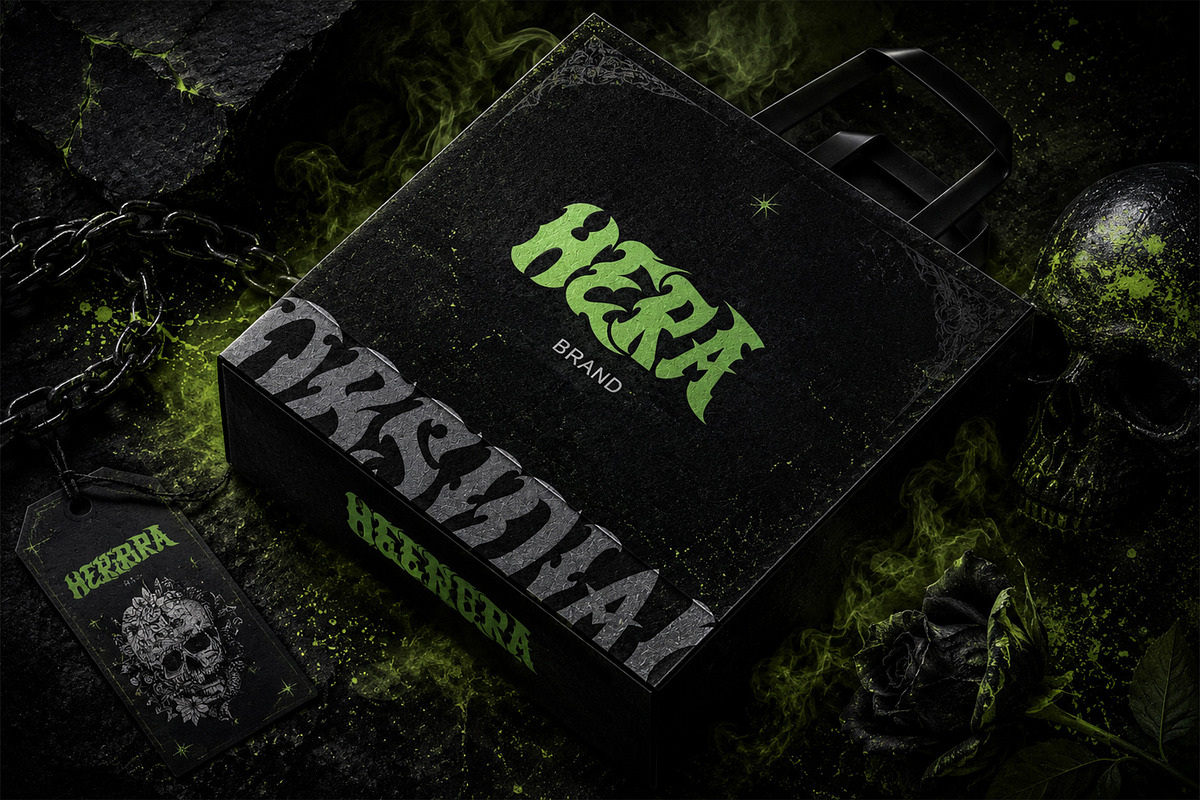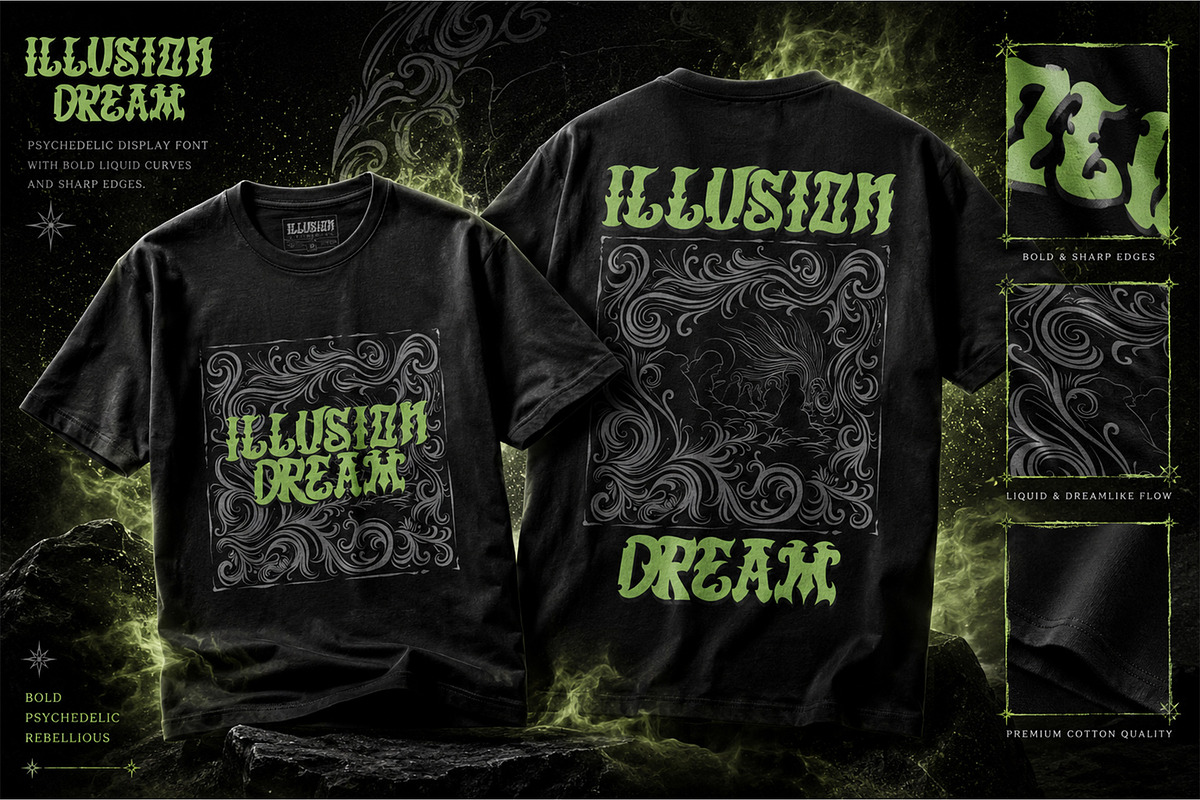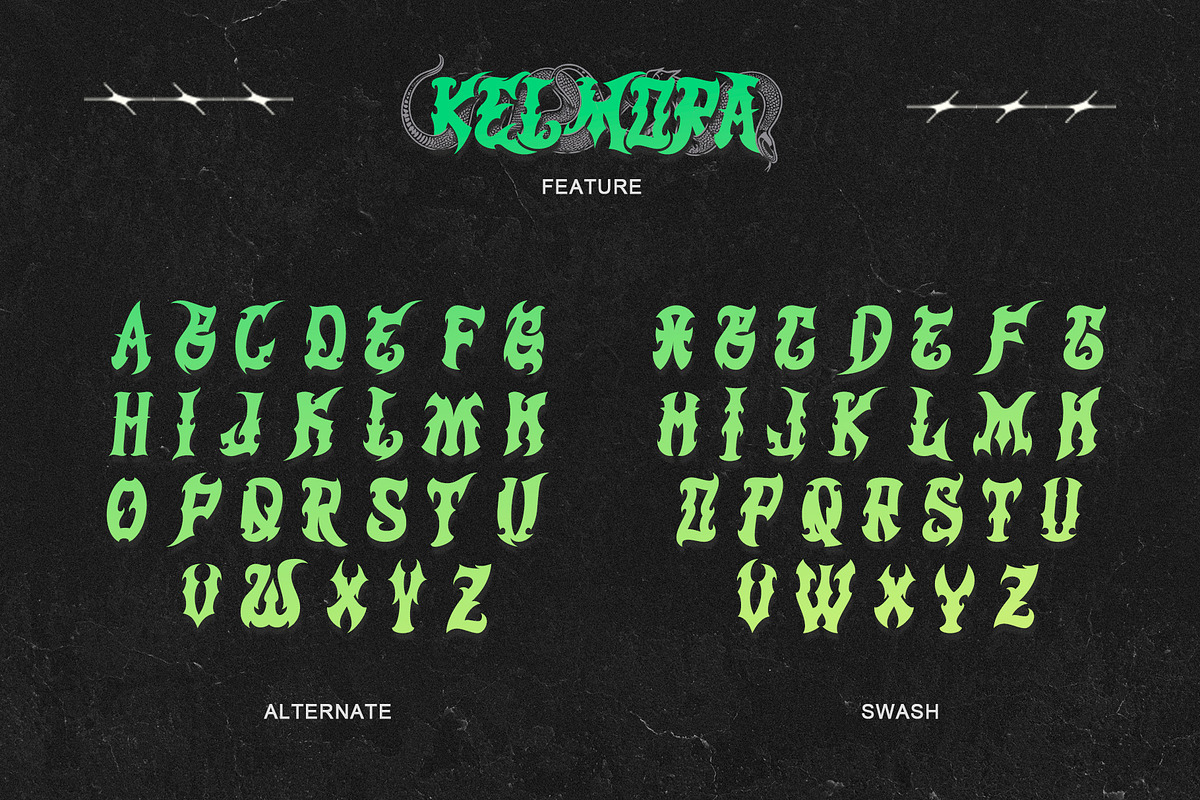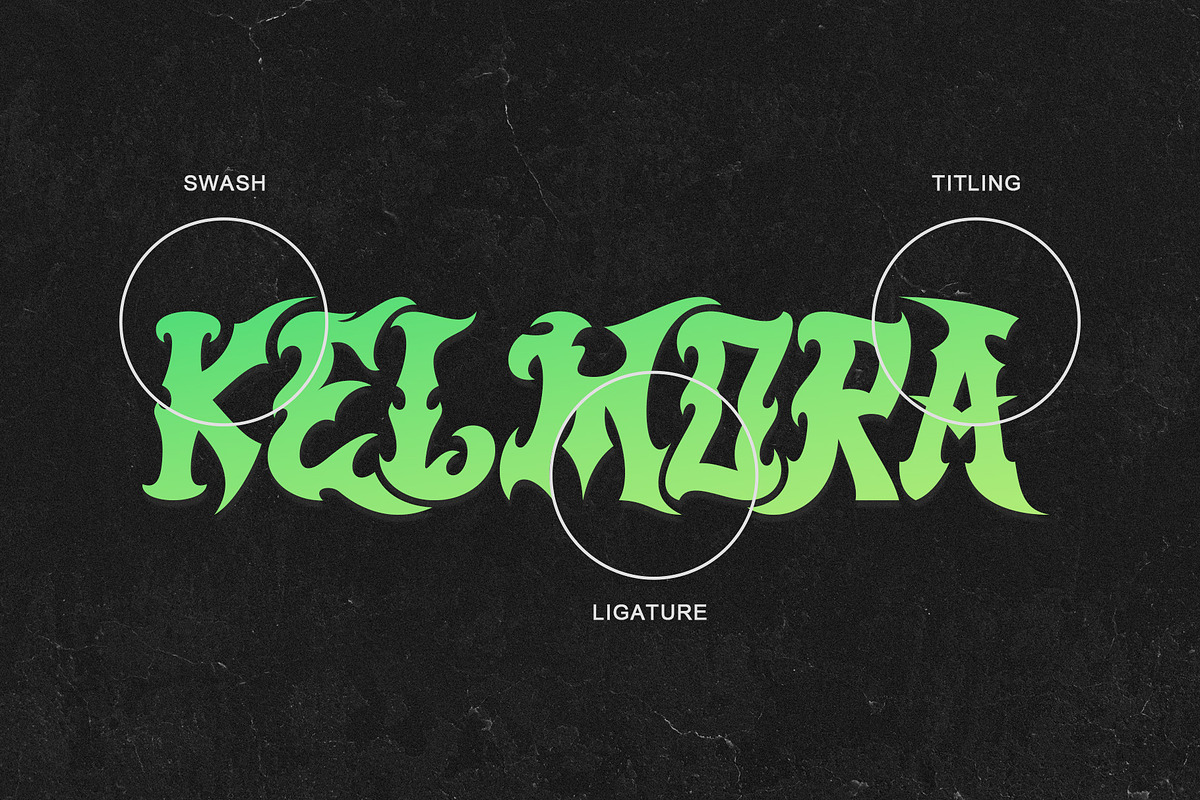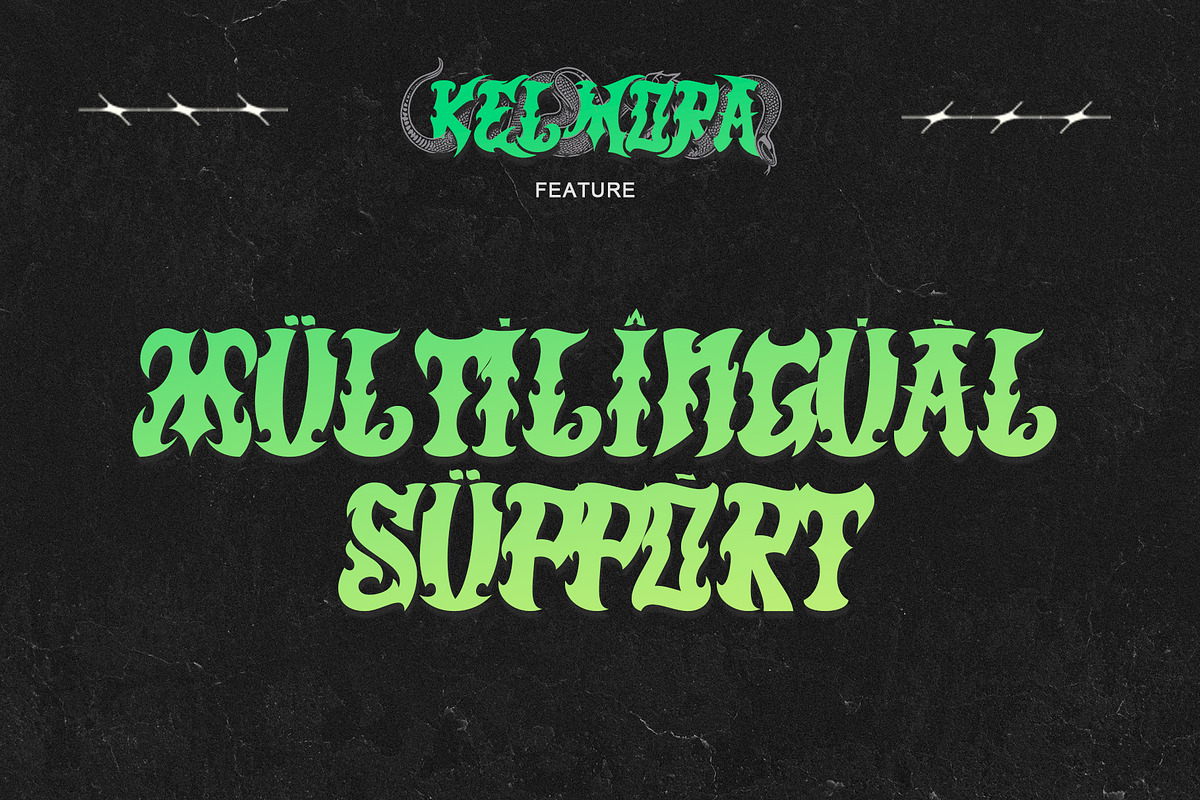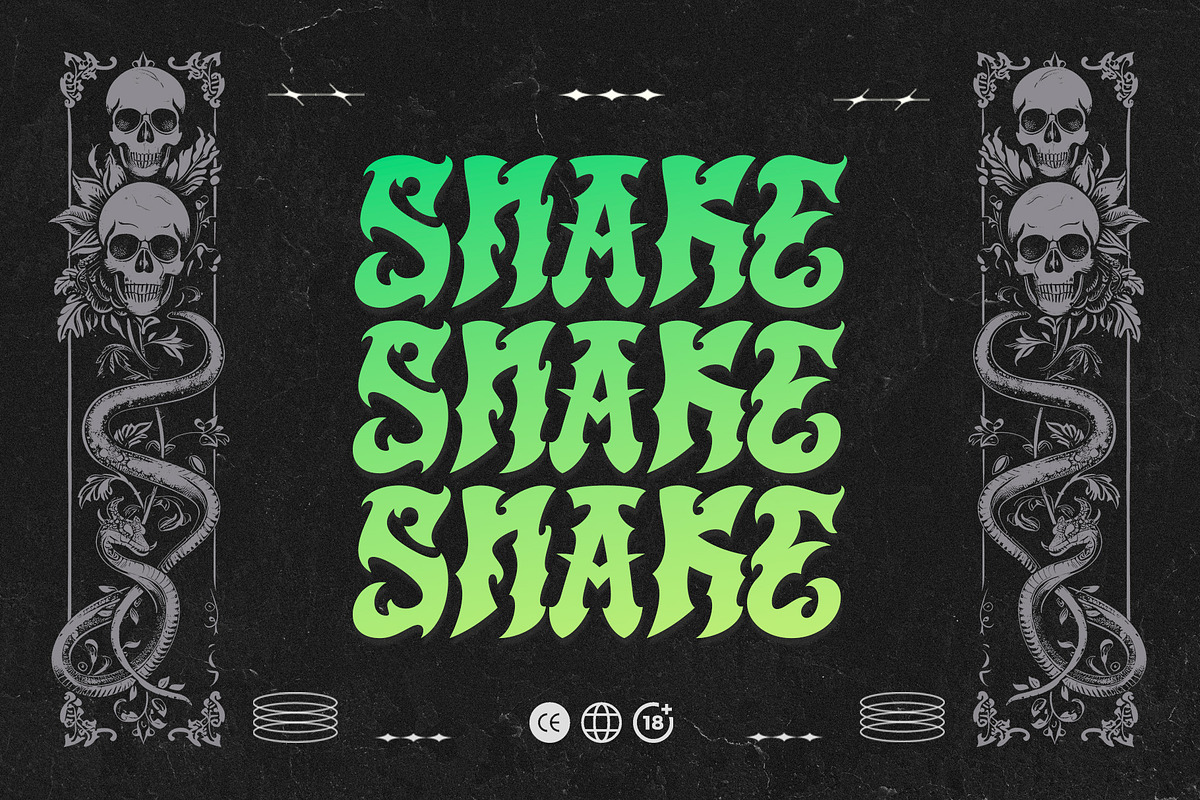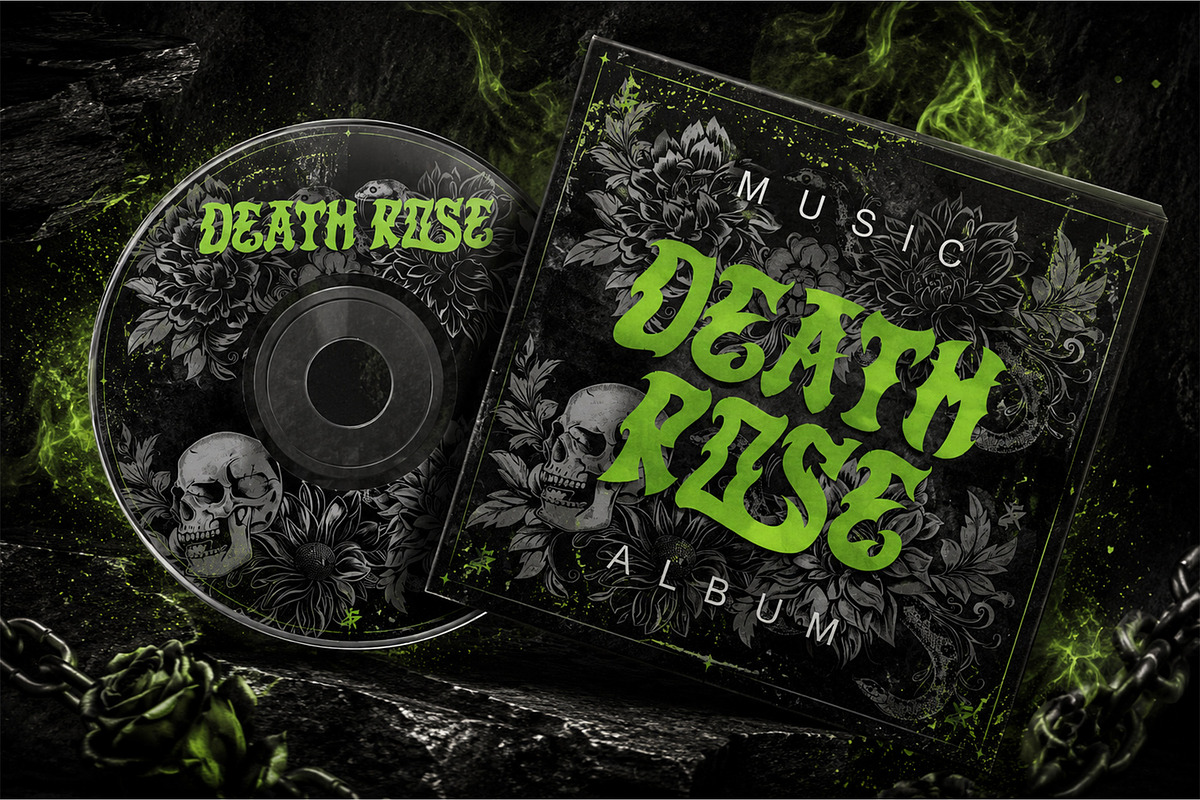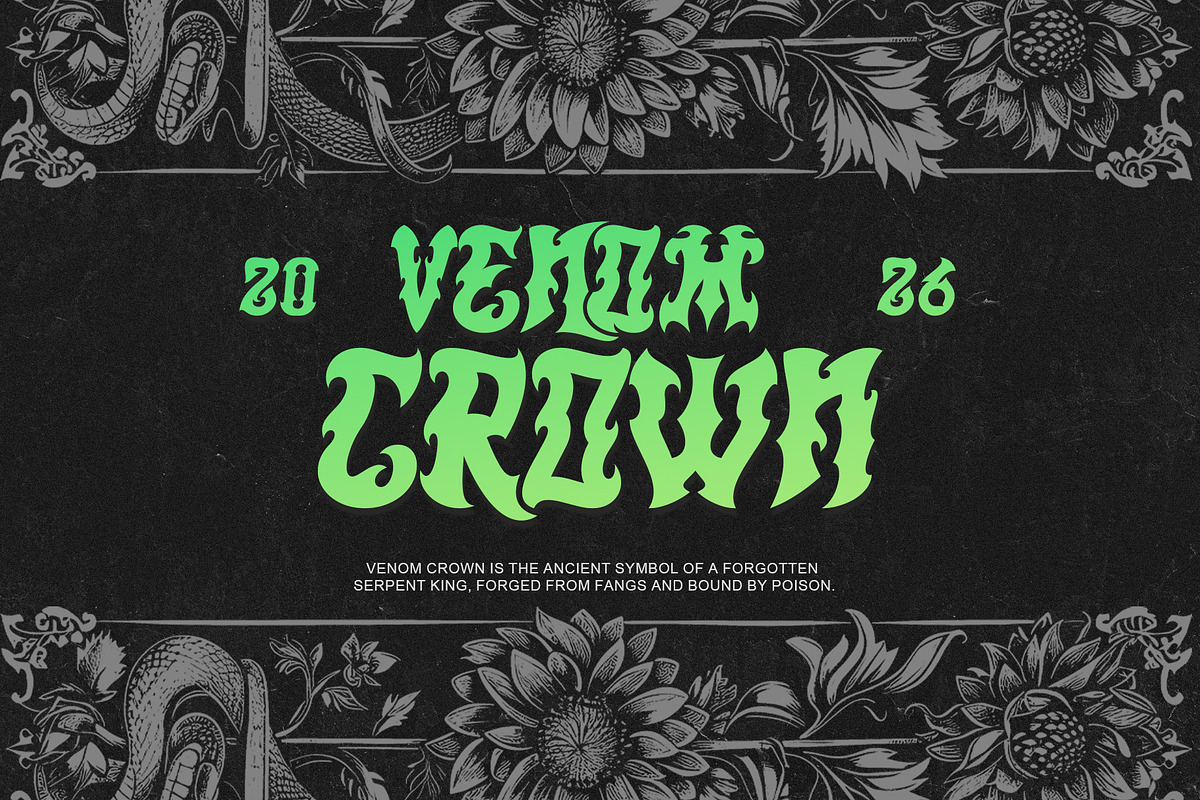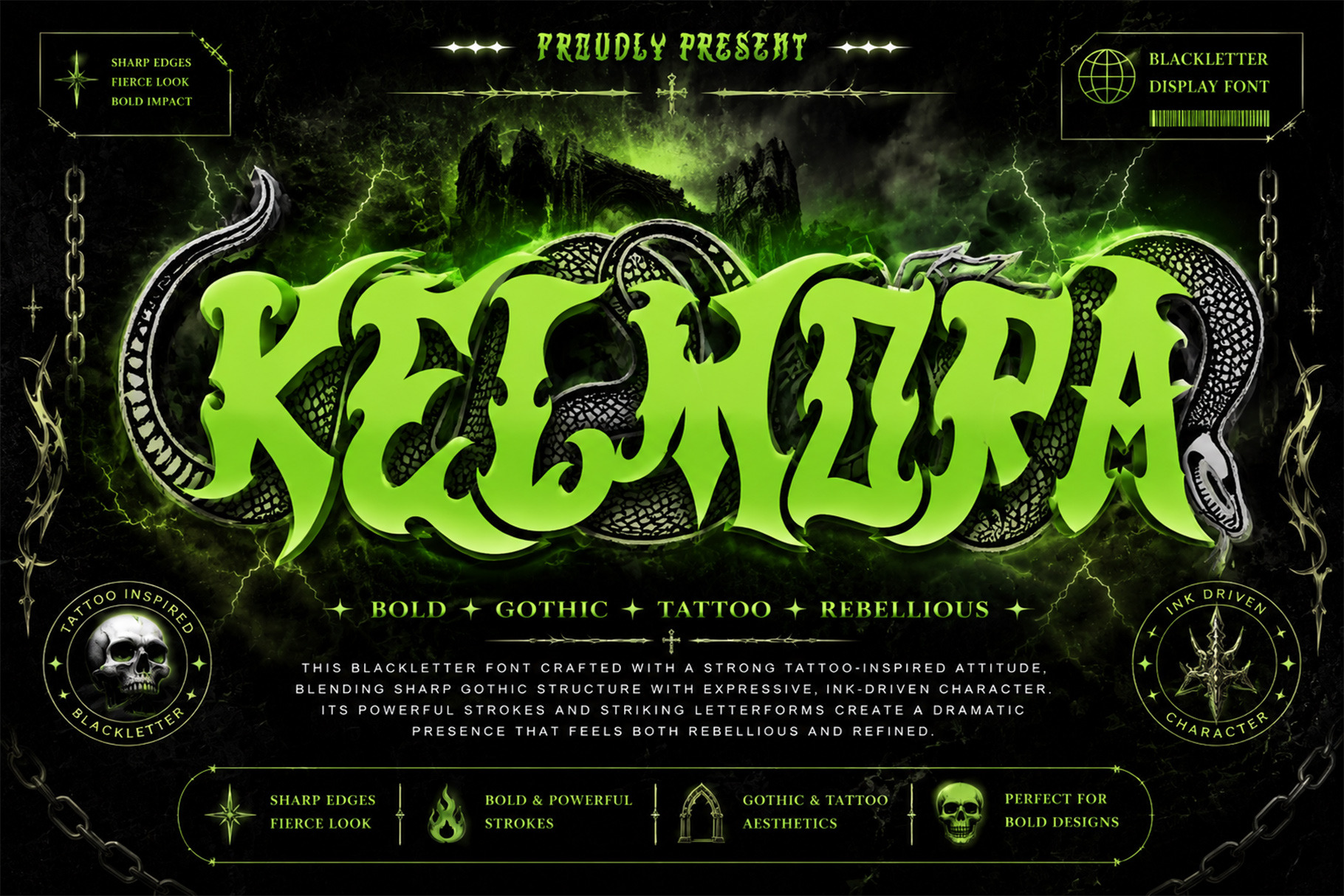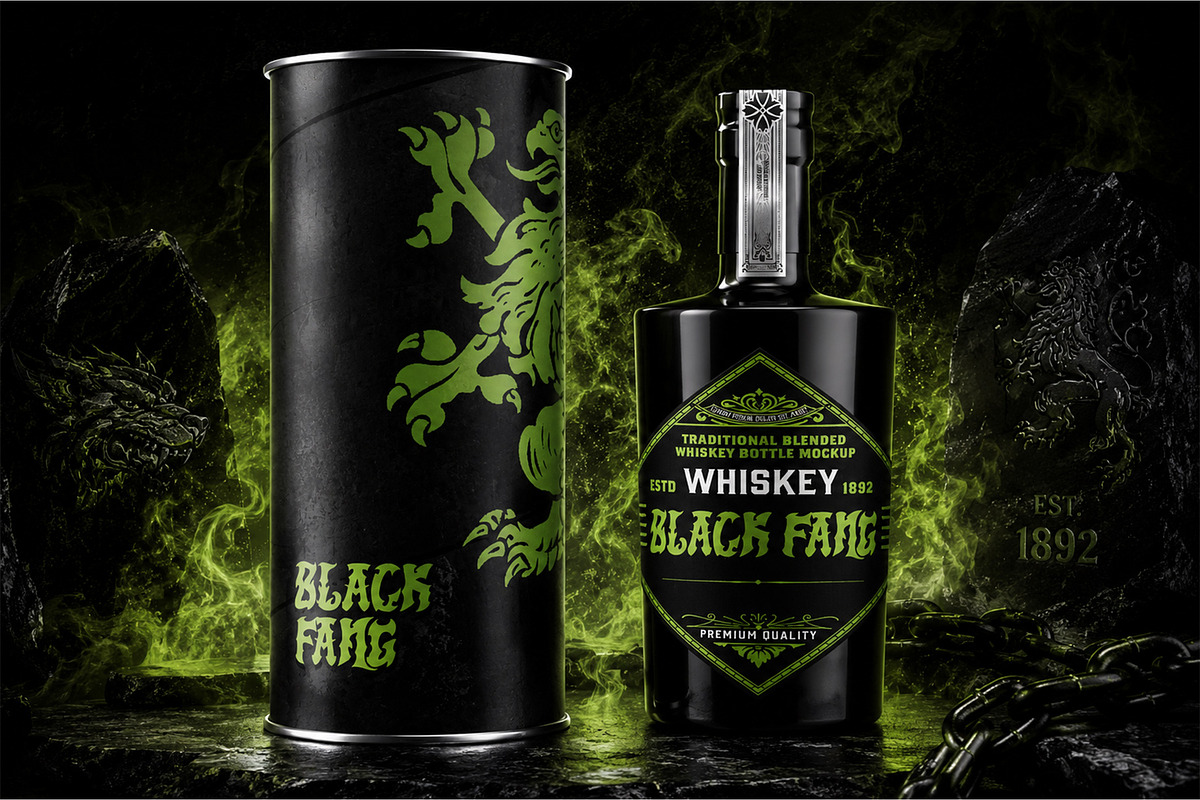
Kelmora - Retro Gothic Tattoo Font
Kelmora is a bold psychedelic blackletter display font crafted with a strong gothic structure and expressive organic curves, delivering a distinctive visual identity that feels powerful, artistic, and contemporary. Inspired by underground typography, vintage psychedelic aesthetics, and modern experimental design, Kelmora offers dramatic letterforms that instantly capture attention while maintaining strong readability and visual balance. Perfect for album covers, poster design, product packaging, branding, beverage labels, creative advertising, gaming visuals, editorial layouts, and premium display projects that require a unique and memorable typographic presence.
Support multilingual; ä ö ü Ä Ö Ü ß ¿ ¡
uppercase letters
Alternate, swash, titling, & Ligature